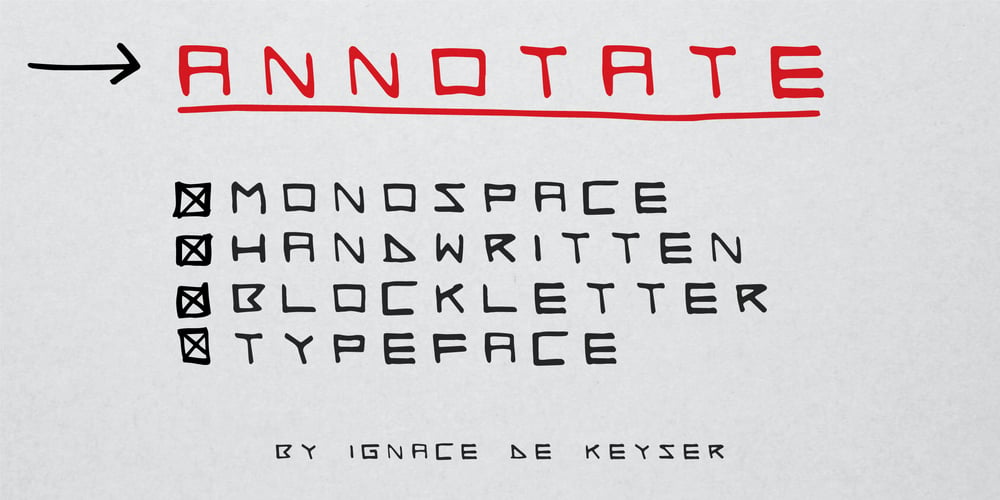
Annotate
Annotate font
Annotate Font Family was designed by Ignace De Keyser and published by Ignace De Keyser. Annotate contains 1 styles and family package options. Annotate is a handwritten, monospace blockletter font complete with letters, numbers, & extended punctuation.The font is based on the handwritten annotation architects and engineer make on plans and sketches. By using a gridbased spacing and blocklettering, engineers can rely on an easily-readable and copy ‘n print friendly annotations on techninical drawings to prevent any possible mistakes in the production process that are a consequence of misreading text.The clarity and uniformity allow to add a hand-written touch to any project without having to make concessions on the readability. Annotate will distinguish your text from the rest, ideal in logos, printed quotes, product packaging design, headers and many more usecases.Designer: Ignace De Keyser